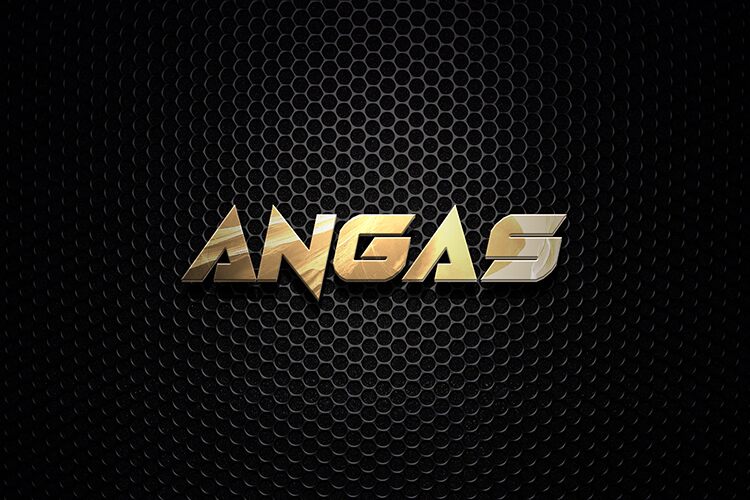
Angas Italic, designed by EyeCone, is a captivating display font that embodies futuristic aesthetics. Its extra-bold weight and expanded width make it an ideal choice for projects that require a bold and attention-grabbing typography. Whether you're designing cutting-edge technology websites, sci-fi movie titles, innovative product packaging, or futuristic event posters, Angas Italic will add a touch of sophistication and modernity to your creations. With its sleek curves and distinctive style, this font is sure to leave a lasting impression on your audience. Elevate your designs with Angas Italic's unique blend of boldness and futurism!
Angas is a cool, bold and thick lettered display font. It will look stunning on any poster, flyer or print.
Use this font for your futuristic designs and explore its endless possibilities.
Angas was built with FontStruct by Jéson Garnica description: <p>Angas is a cool, bold and thick lettered display font. It will look stunning on any poster, flyer or print.</p>
<div> <p>Use this font for your futuristic designs and explore its endless possibilities.</p> </div> Angas"